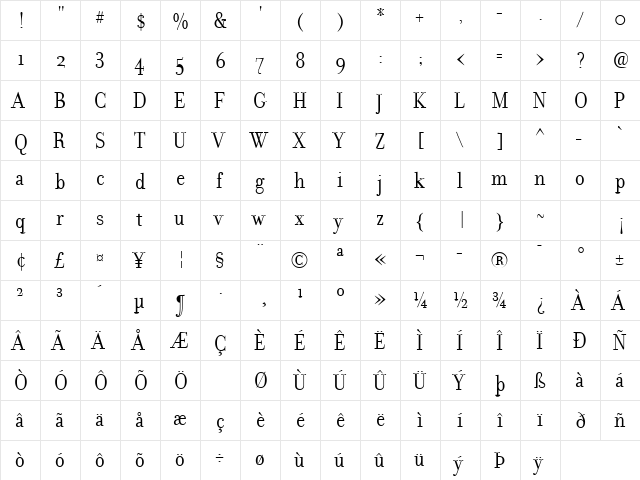
FilosofiaGrand Regular
Design Context for FilosofiaGrand Typeface
FilosofiaGrand is a composed and adaptable typeface that performs quietly and consistently across a wide range of design contexts.
Pro Tip: Use FilosofiaGrand in both headline and body roles to test its range before committing to a single application.